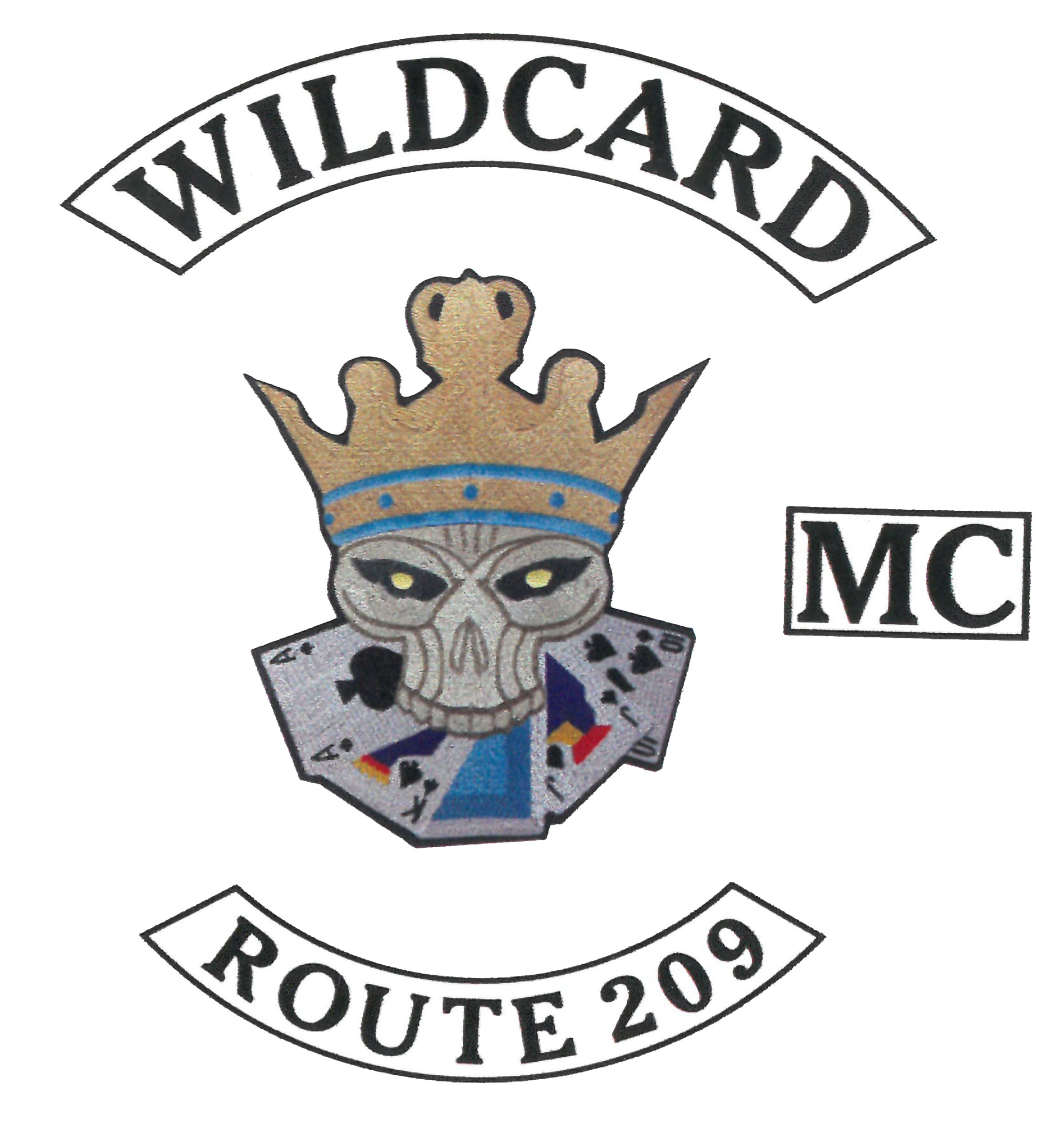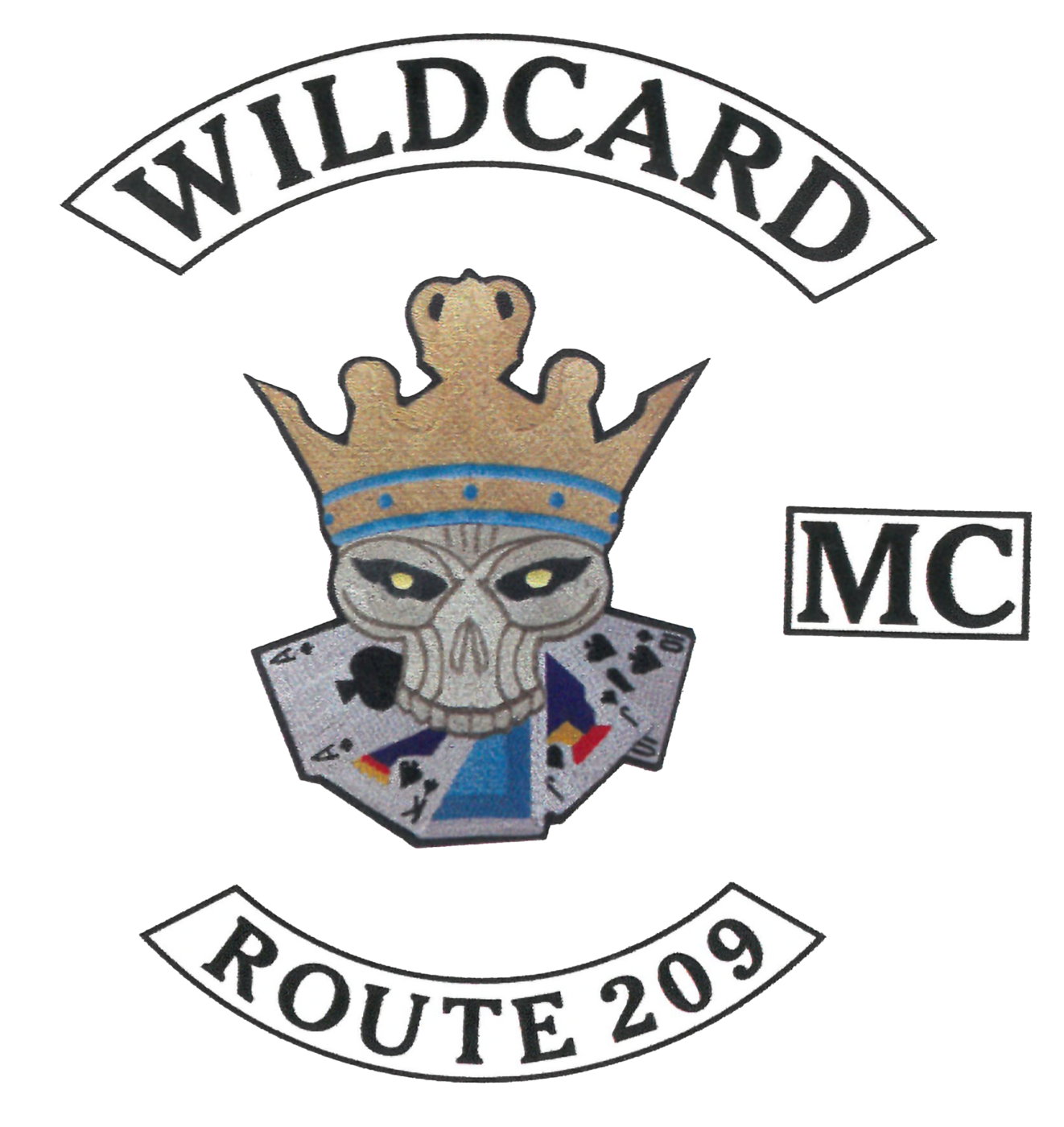
Wildcard MC – Need help identifying the font used in this MC's patches
Hi all. My motorcycle club (from here on simply referred to as "my MC") has asked me to rework their graphic materials, such as flyers, stickers, napkins, buttons, menus, t-shirts, notepads and a whole lot more. My MC have a pretty ordinary serif typeface in the logo, but nobody seems to remember the actual name of the typeface. Don't ask me why my MC have a king in the center patch and not a joker. I'm certain that I've seen this typeface many times myself, but I'm stuck, not seeing the forest for all the trees. I'm hopeful that some of you superheroes can help. Thanks in advance. Cheers, Bjørn Edvard